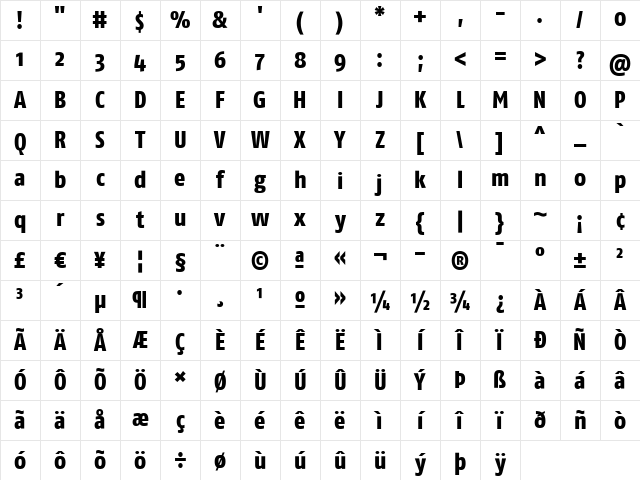
FagoCo Extrabold
Style: Extrabold
Foundry: Ole Schaefer, . Published by FontShop International for FontFont Release Fago Condensed is a trademark of FSI Fonts and Software GmbH
Design Context for FagoCo
FagoCo is a composed and adaptable typeface that performs quietly and consistently across a wide range of design contexts. Its bold stroke weight gives it real presence on the page.
Who designed the FagoCo Extrabold font?